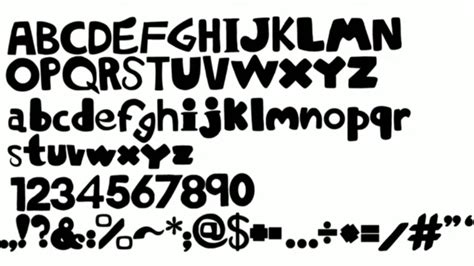
Alphabet Lore Font Scratch: Create Your Own Letters!
Hey there, readers! Have you ever wondered how to create your own letters in the iconic Alphabet Lore font style, made popular by the viral video series? You're in luck! This article explores everything you need to know about Alphabet Lore font Scratch, a powerful tool that allows you to unleash your creativity and design unique letters.
The Alphabet Lore font, with its distinctive rounded corners and bold shapes, has captured the imagination of millions. And with Alphabet Lore font Scratch, you can finally create letters as cool and quirky as the ones from the series. We've analyzed the font and the Scratch platform to provide you with the ultimate guide for crafting your own awesome letters.
Alphabet Lore Font Scratch: What Is It?
Alphabet Lore font Scratch is a fun and engaging way to design your own custom letters using the Scratch programming language. Scratch is a visual programming language specifically designed for kids and beginners, but it's powerful enough to create complex projects like designing font styles.
Scratch utilizes blocks of code that you drag and drop to create simple programs and graphics, including letters! In the context of Alphabet Lore font Scratch, you use the Scratch interface to create sprites (graphical objects) in the shape of letters, applying the iconic rounded corners and bold shapes that define the Alphabet Lore font.
Creating Sprites for Your Alphabet Lore Font:
The foundation of your Alphabet Lore font Scratch project lies in creating sprites, the graphical elements that represent your letters. Scratch provides a variety of tools to draw and modify sprites, allowing you to craft unique versions of each letter.
You can start by drawing the basic shape of each letter using the Scratch interface's drawing tools. Think about the rounded corners and bold strokes characteristic of the Alphabet Lore font style. You can then experiment with different color palettes and shading to add depth and visual appeal to your letter designs.
Remember, the joy of Alphabet Lore font Scratch lies in your personal creativity. You can make your letters as detailed and intricate as you desire. Play around with shapes, colors, and textures to see what unique and wonderful letters you can create!
Animating Your Alphabet Lore Letters:
Beyond simply creating static letter sprites, Scratch allows you to animate your Alphabet Lore font! This means bringing your letters to life with movement and interactive elements. You can create animations like letters bouncing, spinning, or morphing into other shapes.
Animations can breathe life into your font design and make your letters more engaging. For example, you could animate a letter "A" to gradually morph into a letter "B," adding a touch of magic to your font.
The possibilities for animation are endless! Use Scratch's features to let your imagination run wild and create a truly unique and dynamic alphabet.
Tips for Designing Your Alphabet Lore Font in Scratch
Designing a cohesive Alphabet Lore font in Scratch requires a bit of planning and attention to detail. Here are some tips to help you create an incredible font that's both visually appealing and consistent:
- Consistency is Key: When designing your letters, keep the visual style consistent. Maintain a consistent level of rounded corners, letter thickness, and overall shape. This creates a cohesive font that is easy to read and visually pleasing.
- Focus on the Details: The charm of the Alphabet Lore font lies in its quirky details. Consider adding small, interesting features, like a unique pattern inside a letter, or a playful twist on a familiar shape.
- Experiment with Colors: Color plays a crucial role in font design. Experiment with different colors to see how they affect the overall look and feel of your font. Consider using a color palette that complements the style of your letters.
- Seek Inspiration: For inspiration, study the existing Alphabet Lore characters and how they are designed. Look for common elements, like the rounded corners and bold strokes, and try to incorporate them into your own font.
Examples of Alphabet Lore Font Scratch Projects
To spark your creativity, let's look at some examples of Alphabet Lore font Scratch projects that demonstrate the power of this platform:
- Animated Alphabet: This project creates a fully animated alphabet, with each letter having its own unique animation sequence. The letter M might wave, the letter S might spin, and the letter Z might bounce across the screen.
- Interactive Alphabet Game: This project creates a game where players must match letters with their corresponding images or sounds. The game can feature Alphabet Lore-themed artwork and characters, adding another layer of fun and engagement.
- Custom Font Generator: This project allows users to input their own letters and have them automatically converted into the Alphabet Lore font style. This gives users the ability to create their own unique fonts and use them in their other Scratch projects.